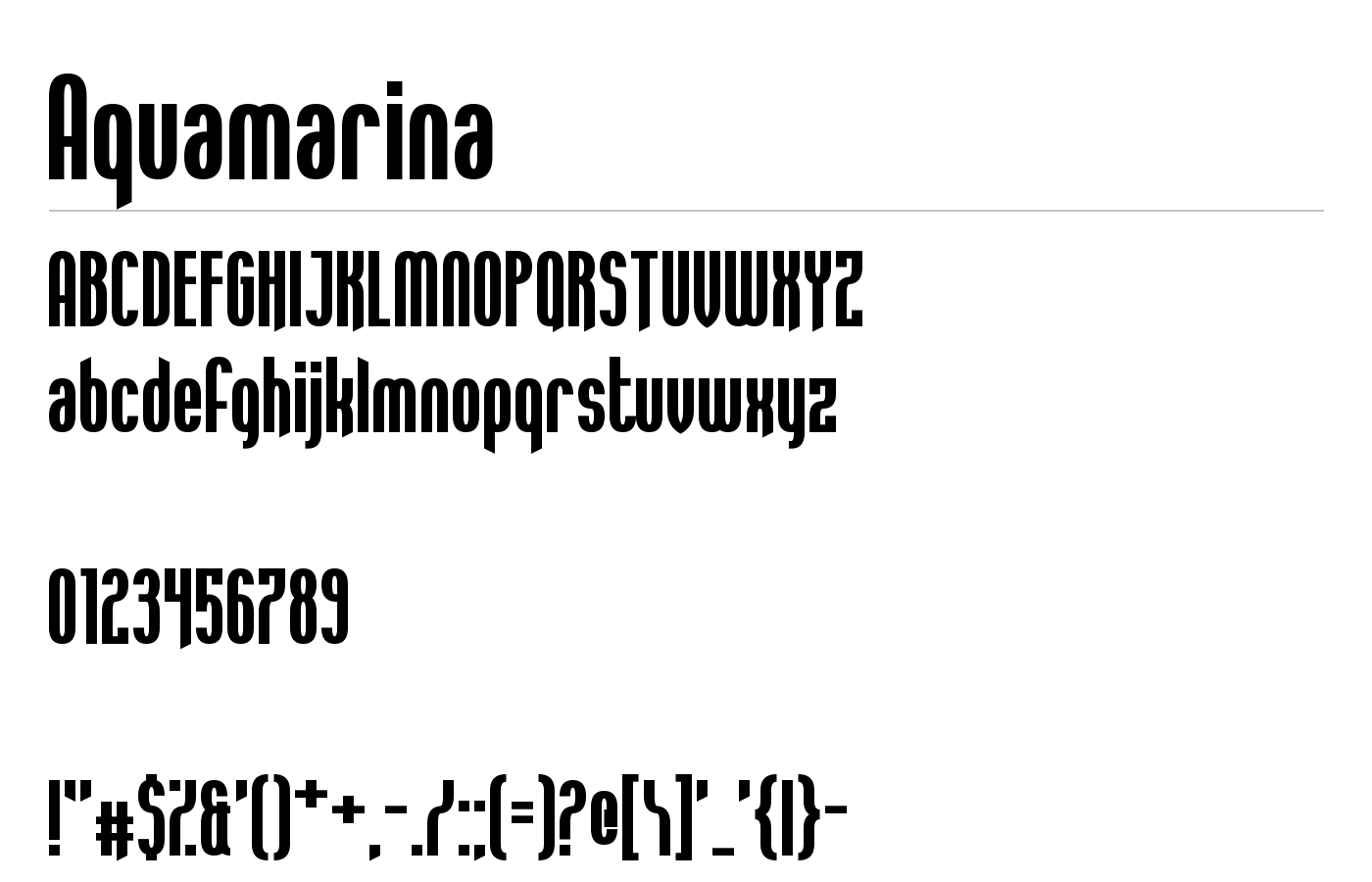
Aquamarina is a condensed sans serif font characterized by its tall, narrow letterforms and modern geometric style. It features consistent stroke weight with minimal contrast, sharp edges, and distinctive angled terminals that add a unique, contemporary flair. This font works well in striking headlines, branding, and editorial designs where a sleek, bold look is desired for a modern, futuristic appeal.
Aquamarina Font
About Aquamarina Font
| Font family | Aquamarina Font |
| Designer | AM |